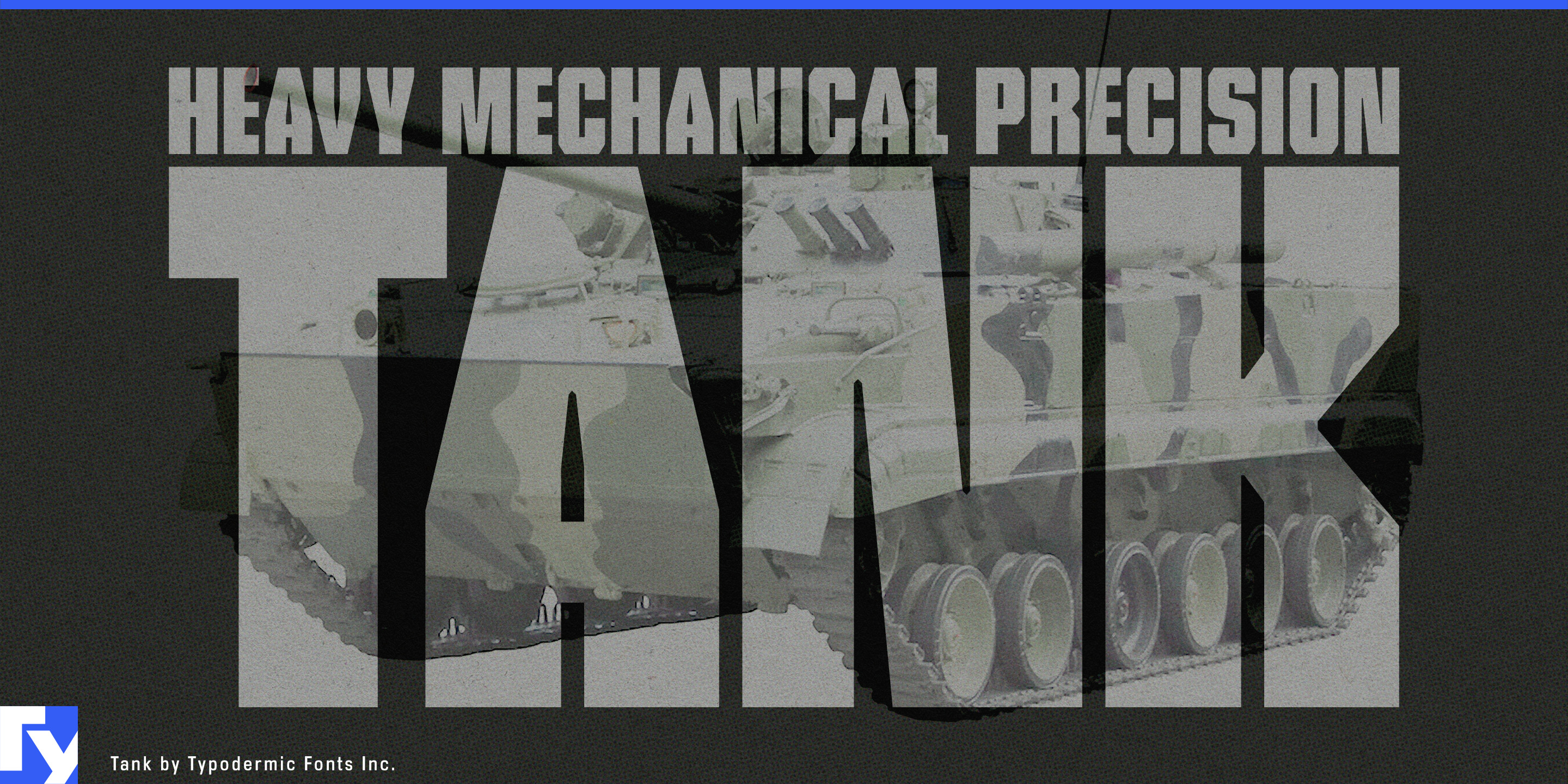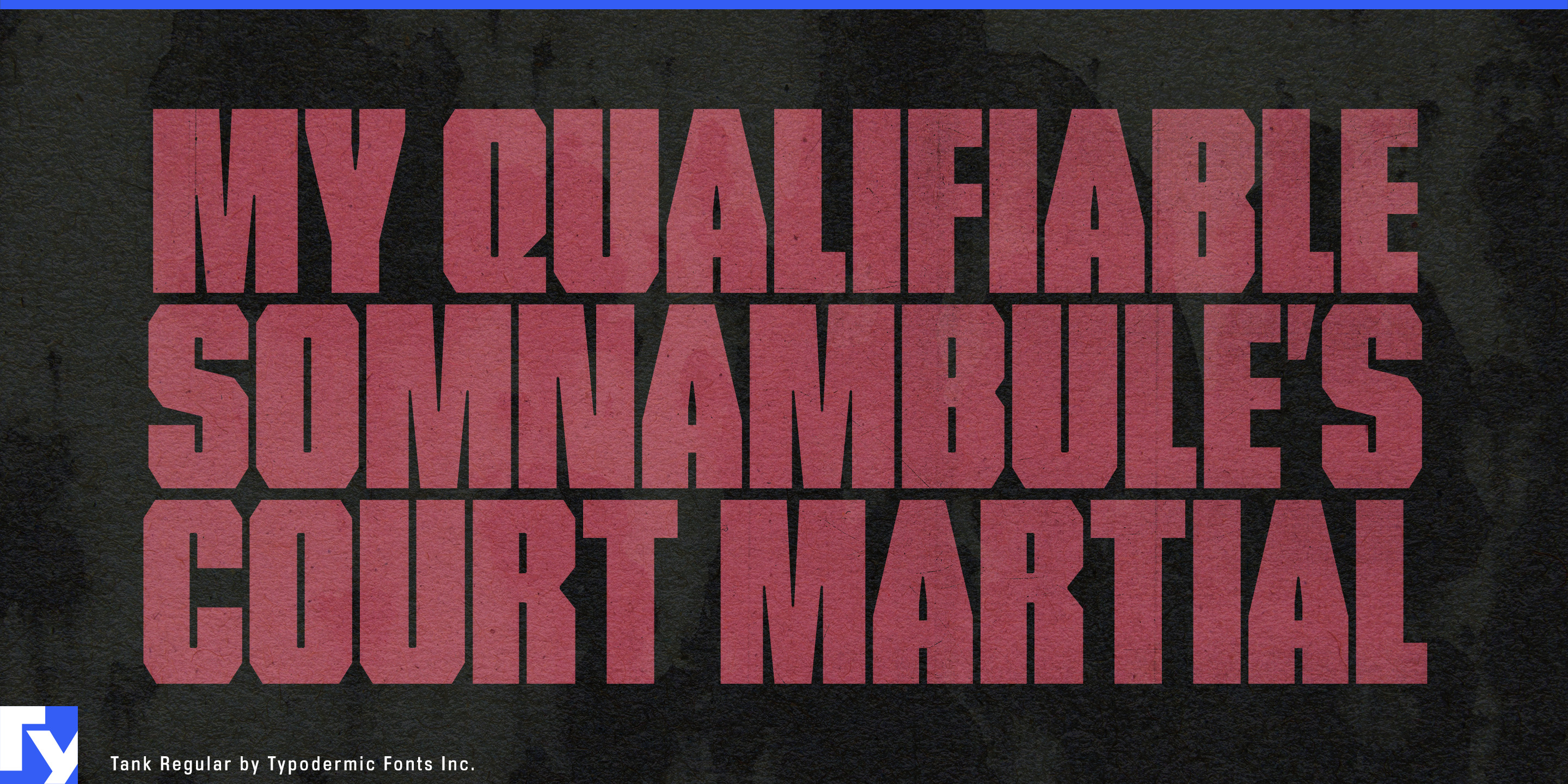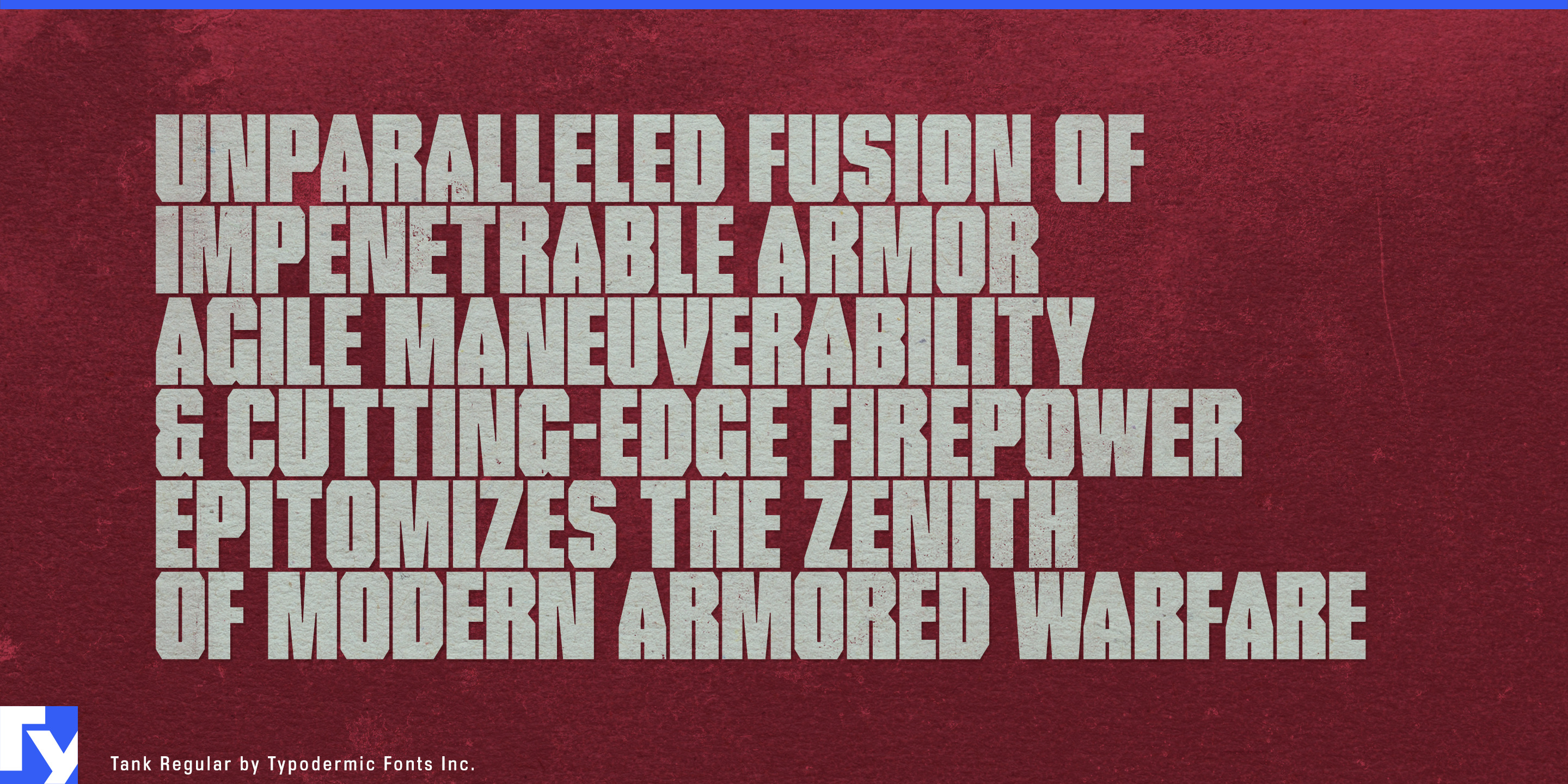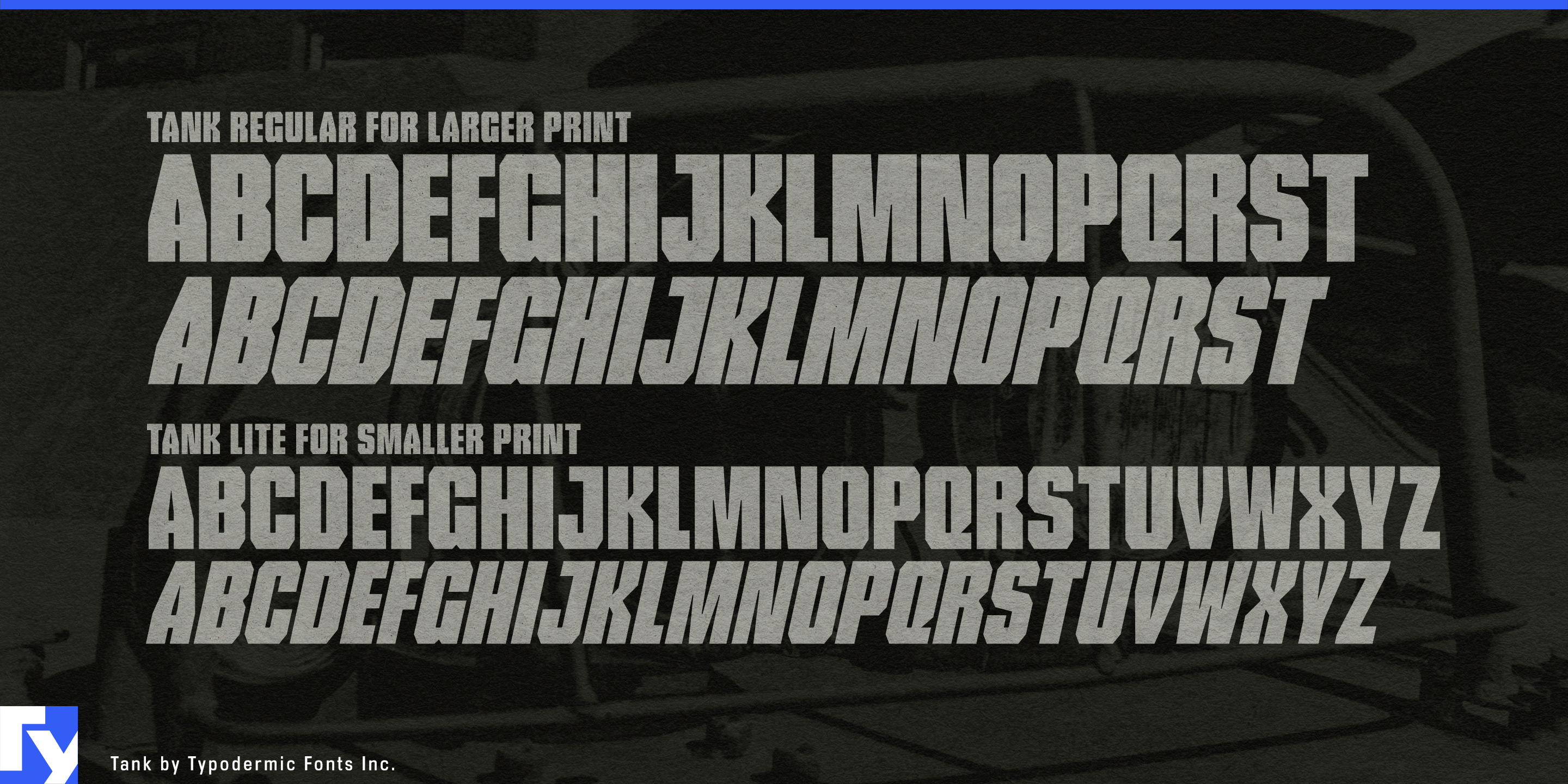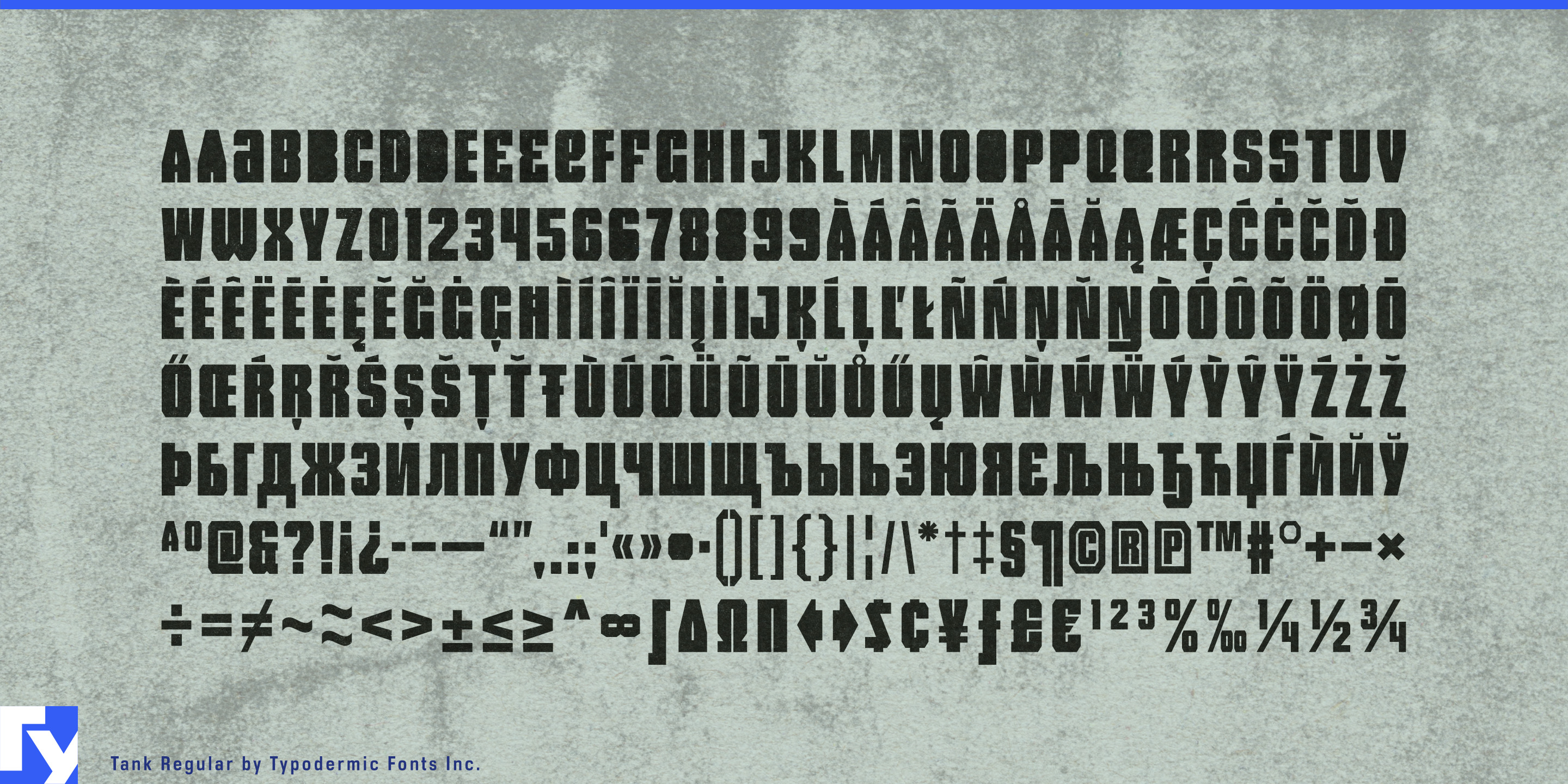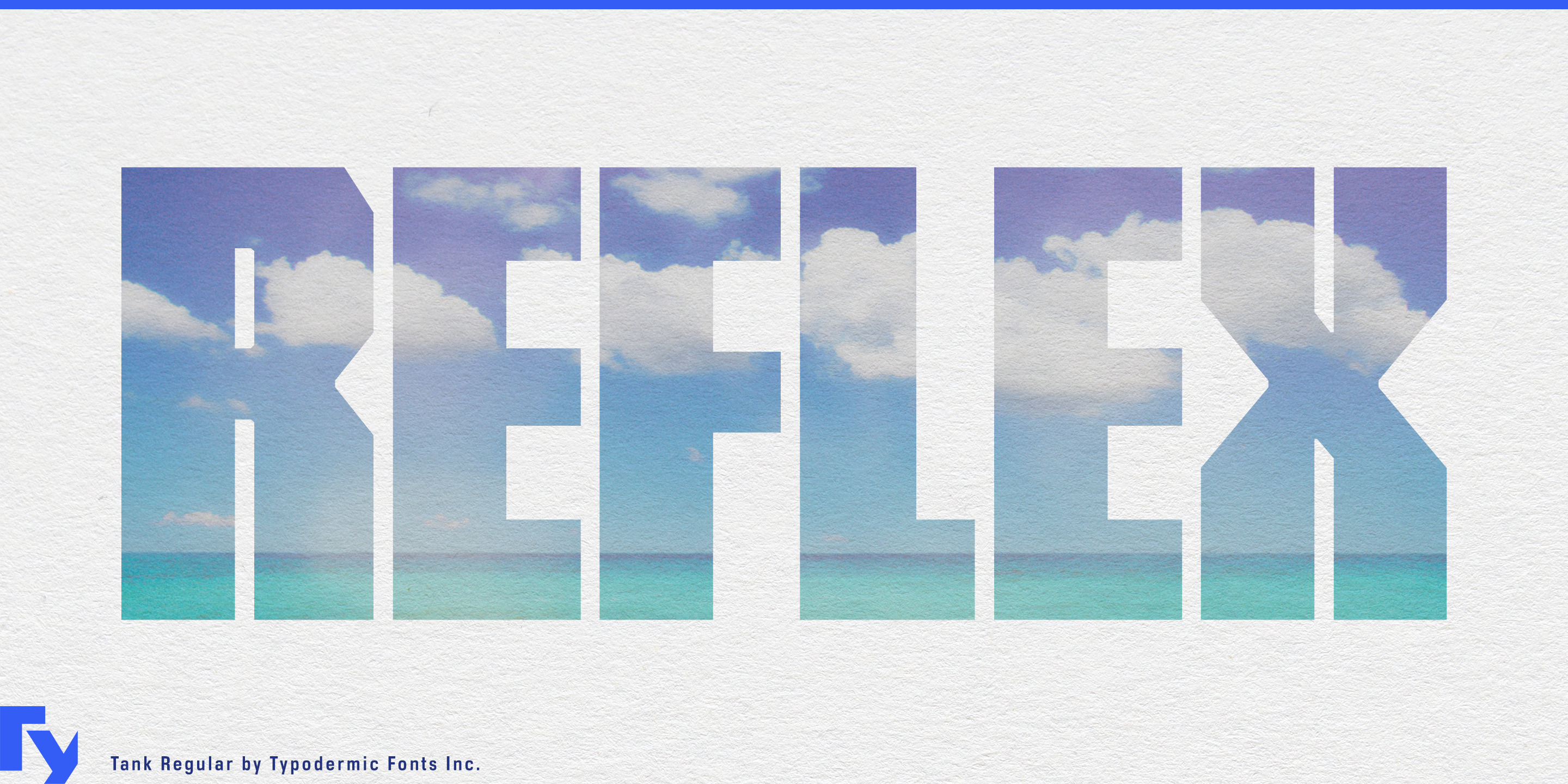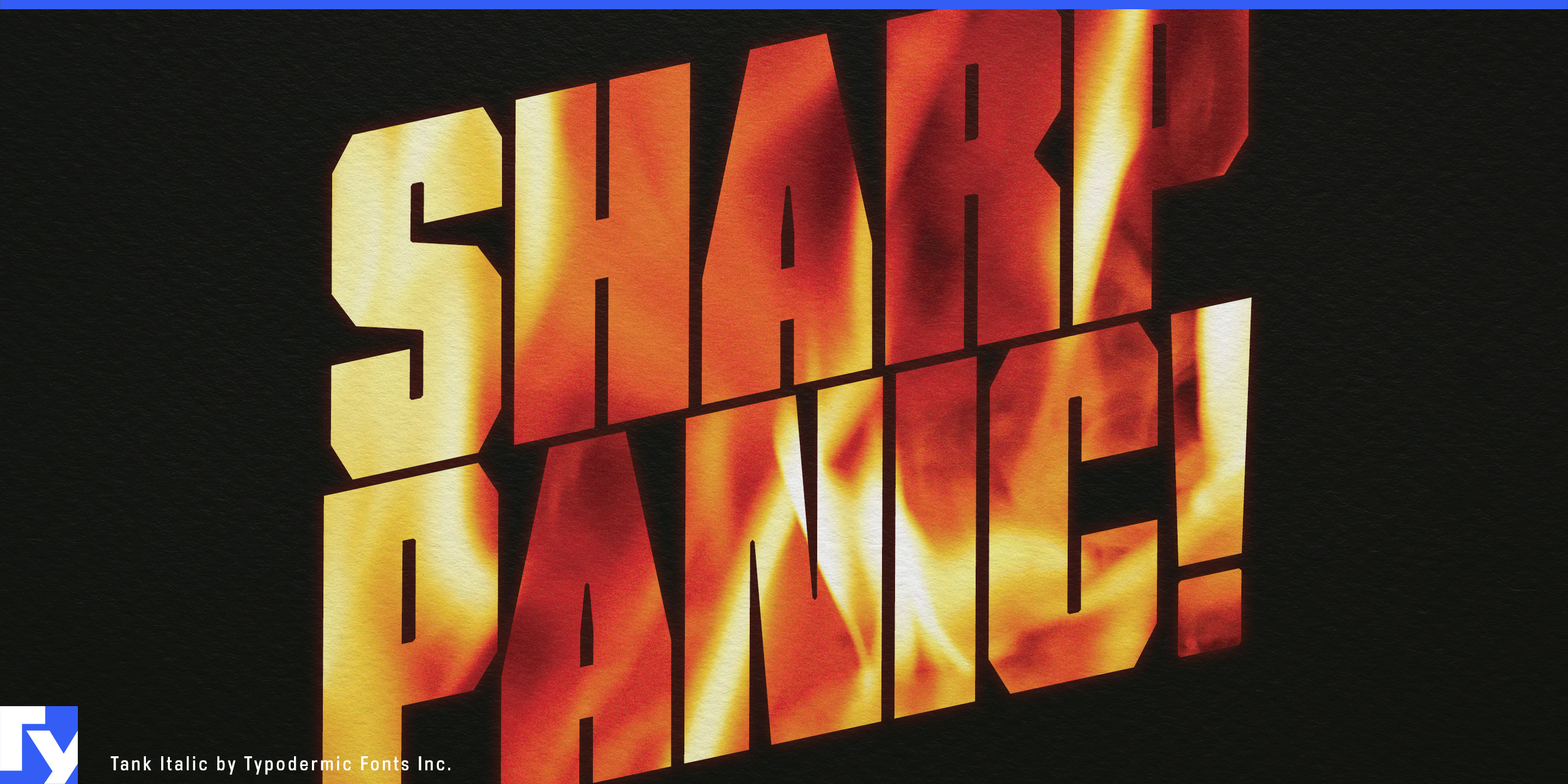
Tank
Tank is built to hold your vision. These letterforms are architectural spaces for imagery, color, and texture. Each blocky shape is engineered with minimal negative space, making it possible to drop in photographs, patterns, or gradients without losing legibility. With Tank, your type can become the centerpiece of the design, not just the headline.
Its Regular weight is a full-strength display workhorse, perfect for oversized titles, billboard headlines, or packaging that demands attention from across the room. The Lite weight, despite its name, is still unapologetically heavy but optimized for smaller applications where clarity is key. For even more versatility, oblique styles add an angular punch, while alternates with closed counters in letters like A, O, and P turn them into uninterrupted canvases—ideal for seamless image fills. Tank thrives where visual presence matters. Think sports branding, where team photos fill the lettering. Music festival posters with sky or stage lights running through the titles. Fashion campaigns that merge typography with fabric textures. Movie key art where every letter carries a scene. Even product packaging where the type itself becomes a pattern.
And Tank’s voice carries far and wide. Its broad Latin language support and extended Cyrillic coverage make it a global player—ready for campaigns that cross borders as effortlessly as they cross industries.
Tank isn’t subtle, and it isn’t trying to be. It’s a typographic structure—solid, adaptable, and designed to put your imagery and message in the same frame. If your project calls for letters that don’t just say something but show something, Tank delivers.